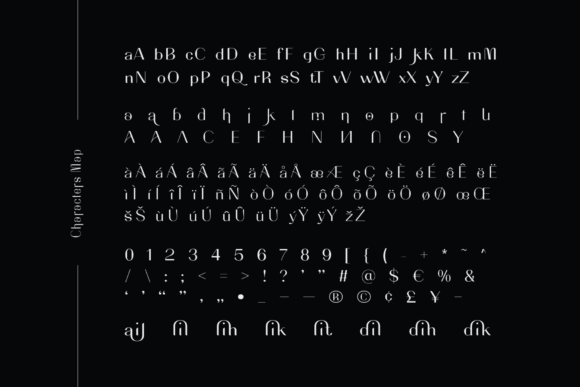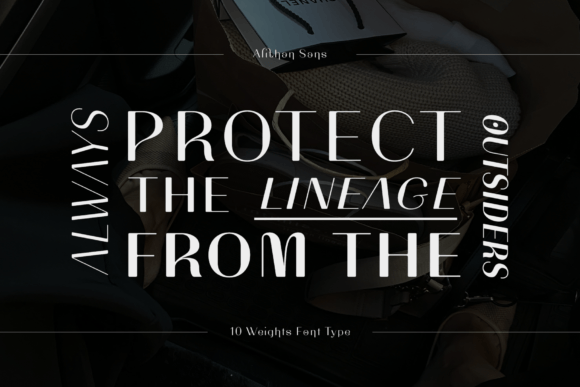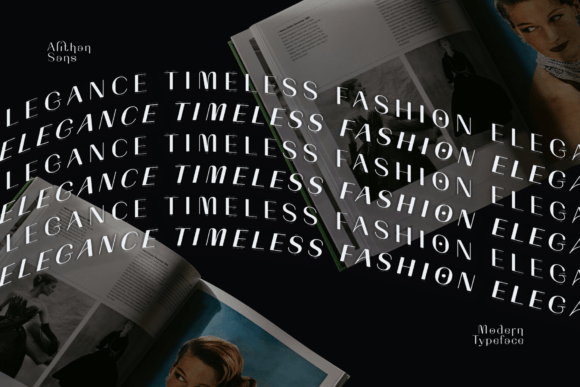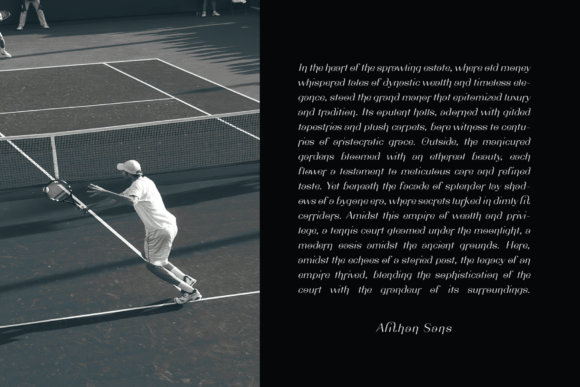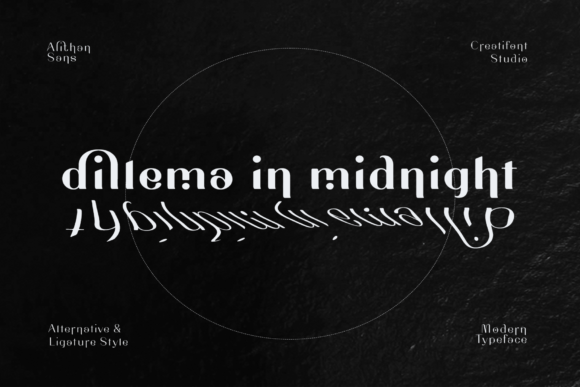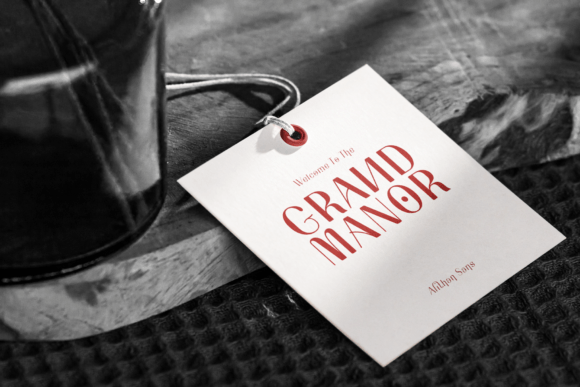
Design Inspiration Strikes
Have you ever been stuck in front of a blank page, staring at a sea of possibilities, but unsure of where to begin? The blank canvas can be daunting, but for designers, it’s also a chance to create something truly special. For us, the spark of inspiration often comes from the right combination of style and substance – and that’s exactly what the Alithan Sans Font provides.
This clean, modern sans-serif is more than just a font – it’s a versatile tool that empowers designers to bring their unique vision to life. With its 5 weights, italics, and extensive ligatures, the Alithan Sans Font offers endless possibilities for creating stunning projects that stand out from the crowd.
Alithan Sans Font Key Features
- Unique Characteristics: Alithan Sans Font features a unique blend of modern and minimalist design elements, with a focus on readability and versatility.
- Font Weight: The font comes in four weights: Light, Regular, Medium, and Bold, allowing for a wide range of typographic expressions.
- Language Support: Alithan Sans Font supports a wide range of languages, including Latin, Cyrillic, and Greek alphabets, with over 100 languages supported.
Alithan Sans Font Review
Overall, I’m quite impressed with Alithan Sans Font. It has a clean and modern aesthetic that works well for digital products and editorial content. ✨ The font is highly legible, even at small sizes, and the letterforms are well-balanced and proportional.
- Legibility: The font is very easy to read, making it perfect for large blocks of text.
- Modern Aesthetic: The clean lines and minimal ornamentation give Alithan Sans a sleek, contemporary feel.
- Flexibility: The font comes in a range of weights, from light to bold, making it versatile for different design applications.
However, there are a few limitations to consider. ✠️ The font’s limited typographic features may limit its use in more complex design projects. Additionally, the font’s condensed forms can make it difficult to read at very small sizes.
- Limited Typographic Features: Alithan Sans lacks some of the advanced typographic features found in more comprehensive fonts, such as old-style figures and swash characters.
- Condensed Forms: The font’s condensed forms can be difficult to read at very small sizes, which may limit its use in certain design applications.
Overall, Alithan Sans is a solid choice for designers looking for a clean, modern sans-serif font. While it may not be the most comprehensive font available, its strengths make it a valuable addition to any design library.
Getting the Most Out of Alithan Sans
For optimal results, use Alithan Sans in headings and titles to create a clean and modern look.
Combine Alithan Sans with other sans-serif fonts for a balanced and professional design.
Use Alithan Sans for:
- Corporate branding and marketing materials.
- Editorial and publishing designs.
- Digital product designs, such as websites and mobile apps.